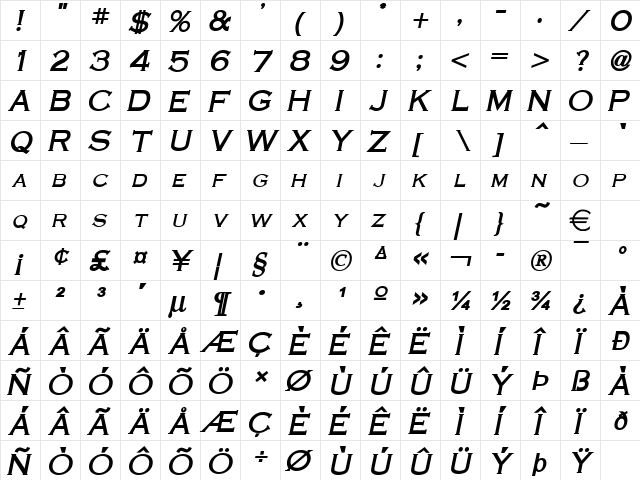
Cobalt BoldItalic Font Preview
Design Context for Cobalt Typeface
Cobalt takes a measured approach to typography — its balanced proportions and neutral character make it a reliable workhorse for both digital and print work. Its italic angle brings a sense of urgency and motion to the letterforms. The heavy weight commands attention and anchors typographic hierarchies.
Pro Tip: Try Cobalt for annotation and caption copy alongside an upright companion — the contrast in angle creates a dynamic but ordered typographic system.